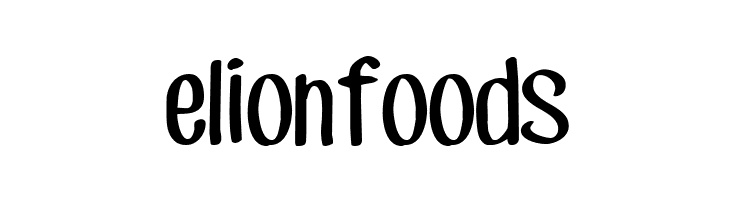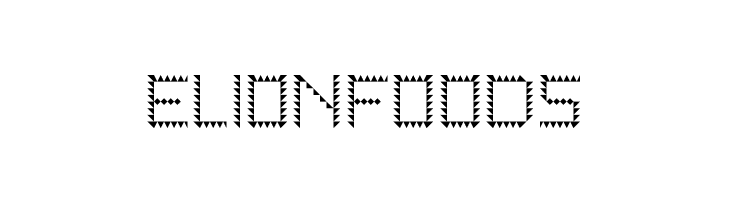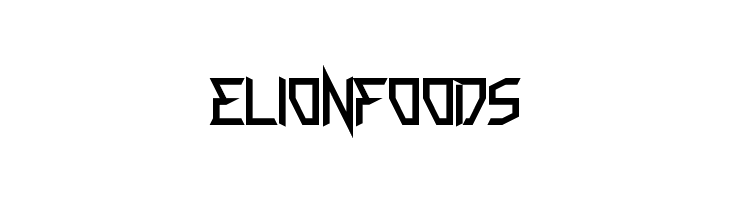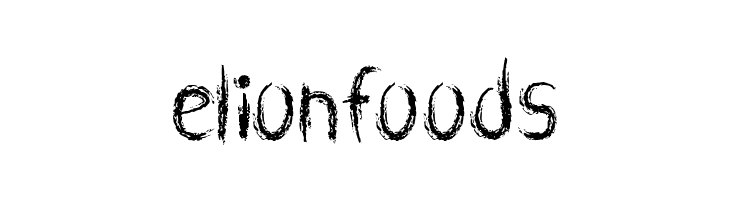
A playful, handwritten font with rounded edges and an energetic flow.
A bold, angular font with a futuristic and edgy design.
A futuristic, angular font with a bold, geometric style.
A distressed, grungy font with a hand-drawn, eerie appearance.